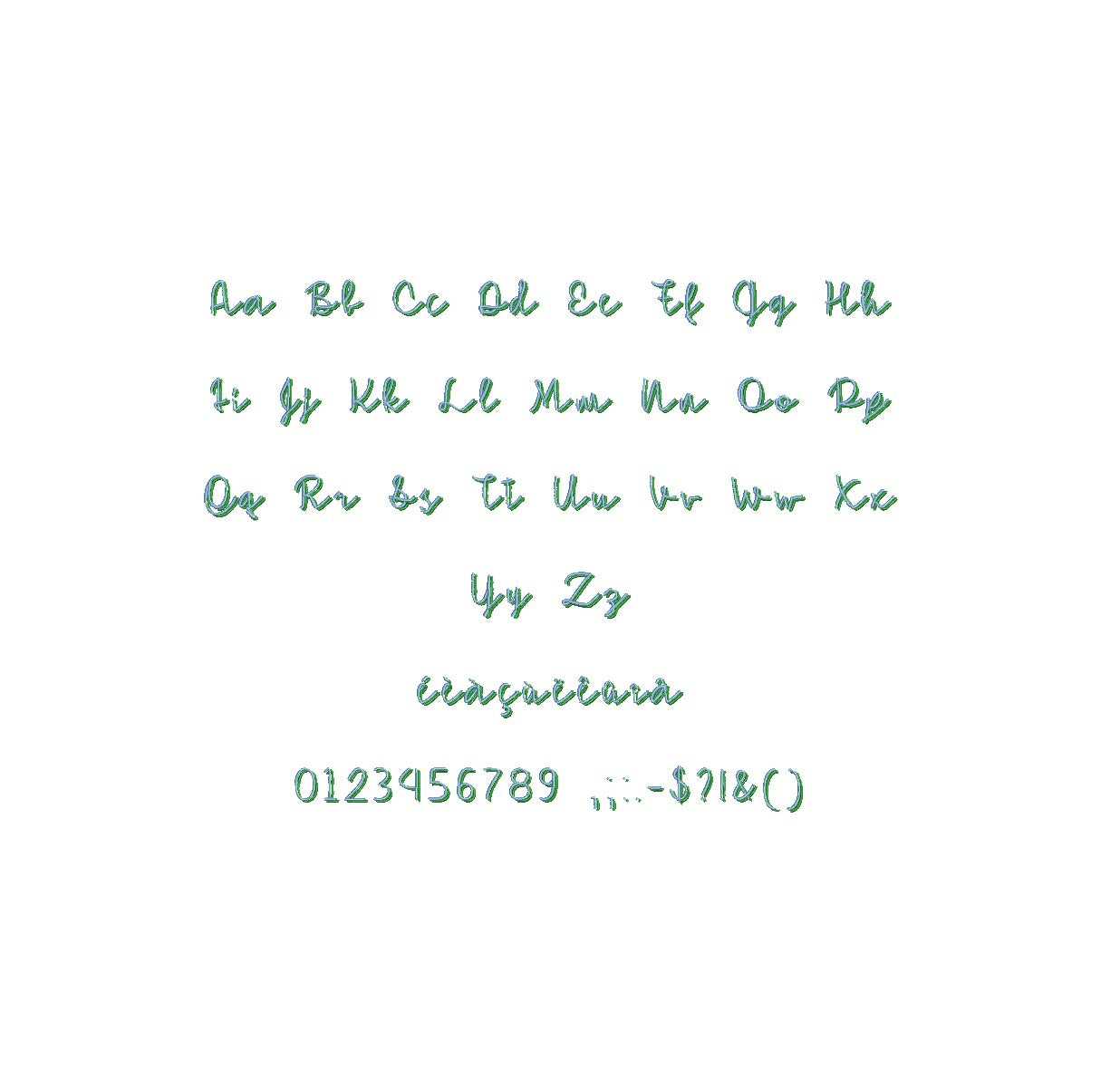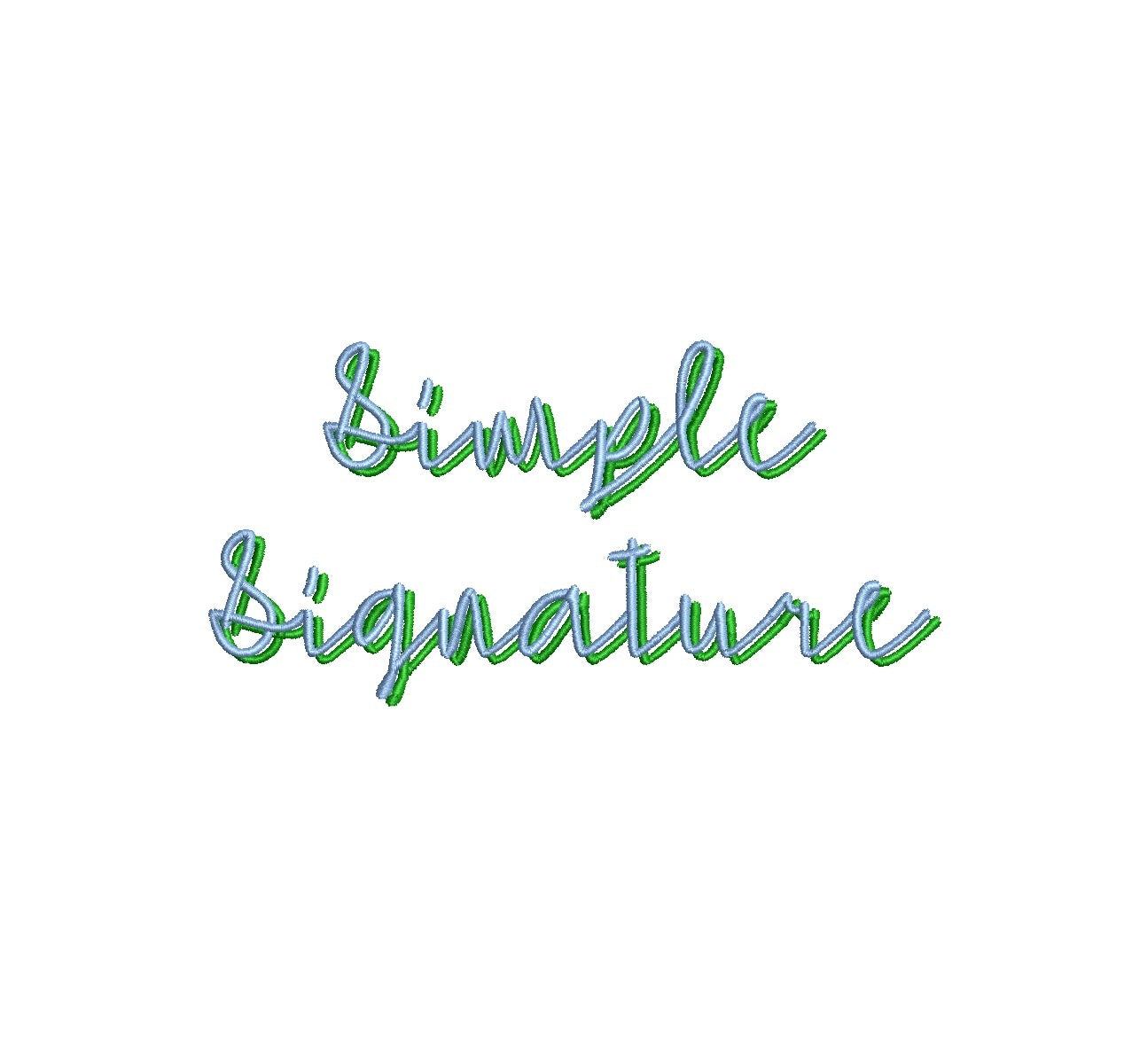
Elevate your embroidery with the refined Simple Signature Shadow ESA font. Crafted for Wilcom Studio e4.5.6 and Hatch 3 versions and beyond, this font seamlessly blends elegance and compatibility. Create personalized designs with its unique shadow effect, adding depth and sophistication to your lettering. Perfect for various applications, from stylish monograms to elegant text layouts. Unleash your creativity as Simple Signature Shadow ESA font enriches your embroidery. Elevate your designs and make a lasting impression. Choose this font to infuse your creations with a touch of timeless style, redefining your embroidery artistry with a signature touch.